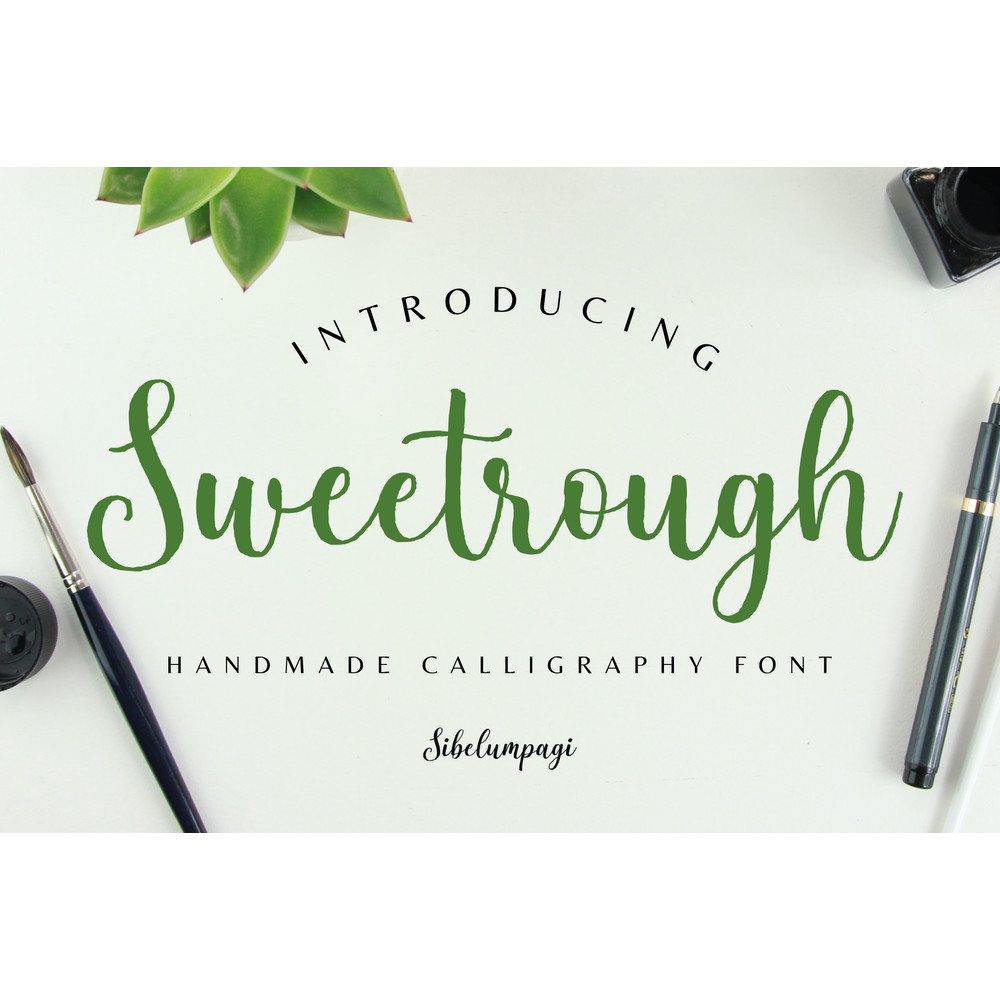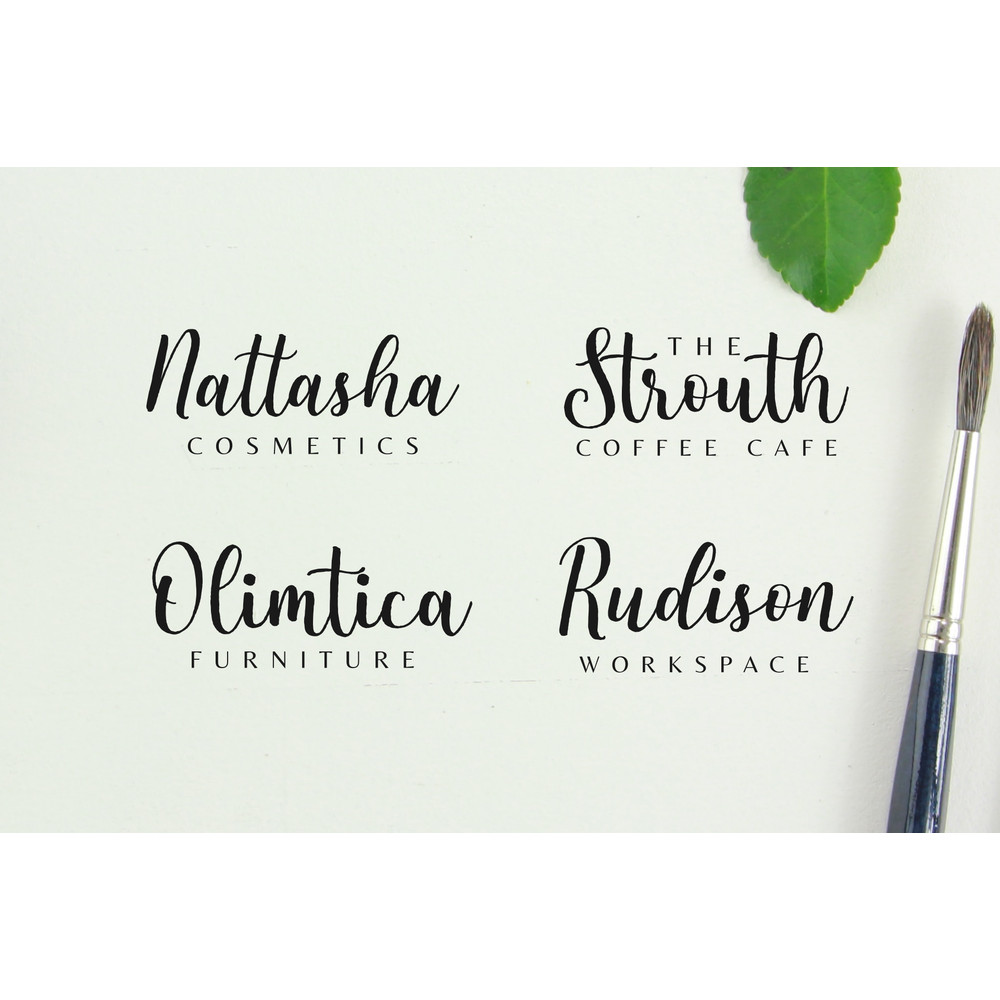
Sweetrough is a bold-handwritten script font, comes with a rough and natural taste in every single glyph.
Sweetrough is perfect for many different projects such as logos & branding, invitation, stationery, wedding designs, social media posts, advertisements, product packaging, product designs, label, photography, watermark, special events or anything.